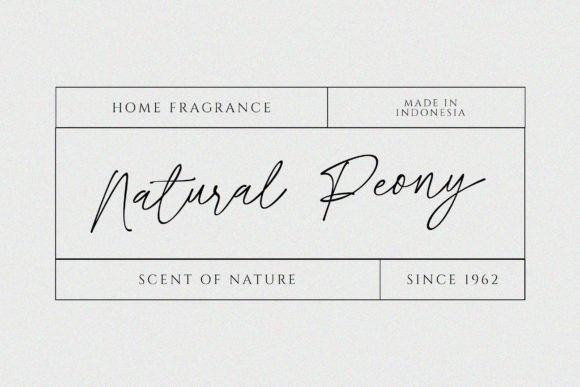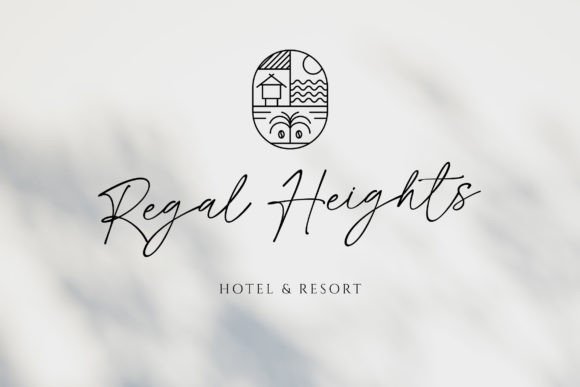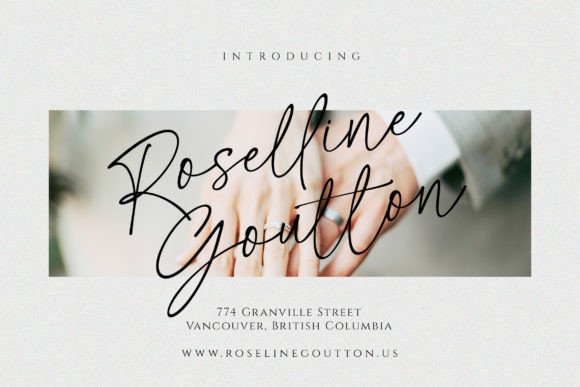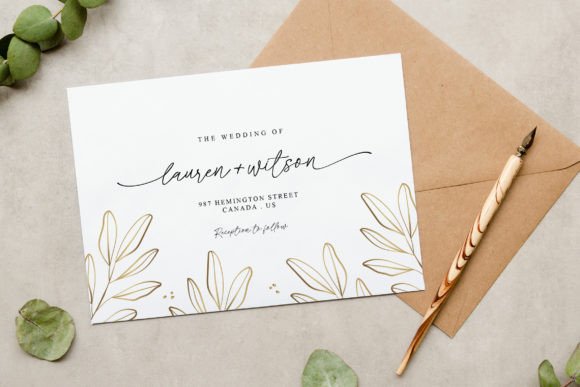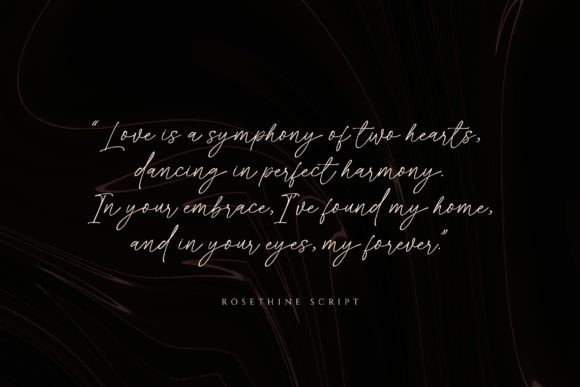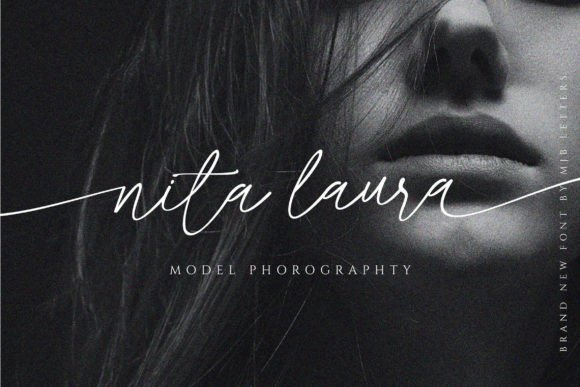
Introduction to Rosethine Font
Rosethine is a modern chic calligraphy font that combines elegance and the beauty of handcrafted writing with a touch of contemporary sophistication.
The font highlights the delicacy of ink strokes, creating a smooth and flowing appearance in each character .
Key Features of Rosethine Font